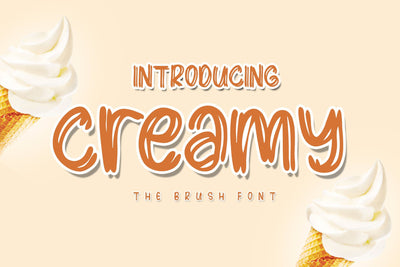
Creamy
Creamy is a font with an elegant and cute appearance. add this font to your creative design ideas into extraordinary works. This font is suitable for t-shirt designs, social media posts, greeting cards, branding, logos, mugs and your favorite design ideas.